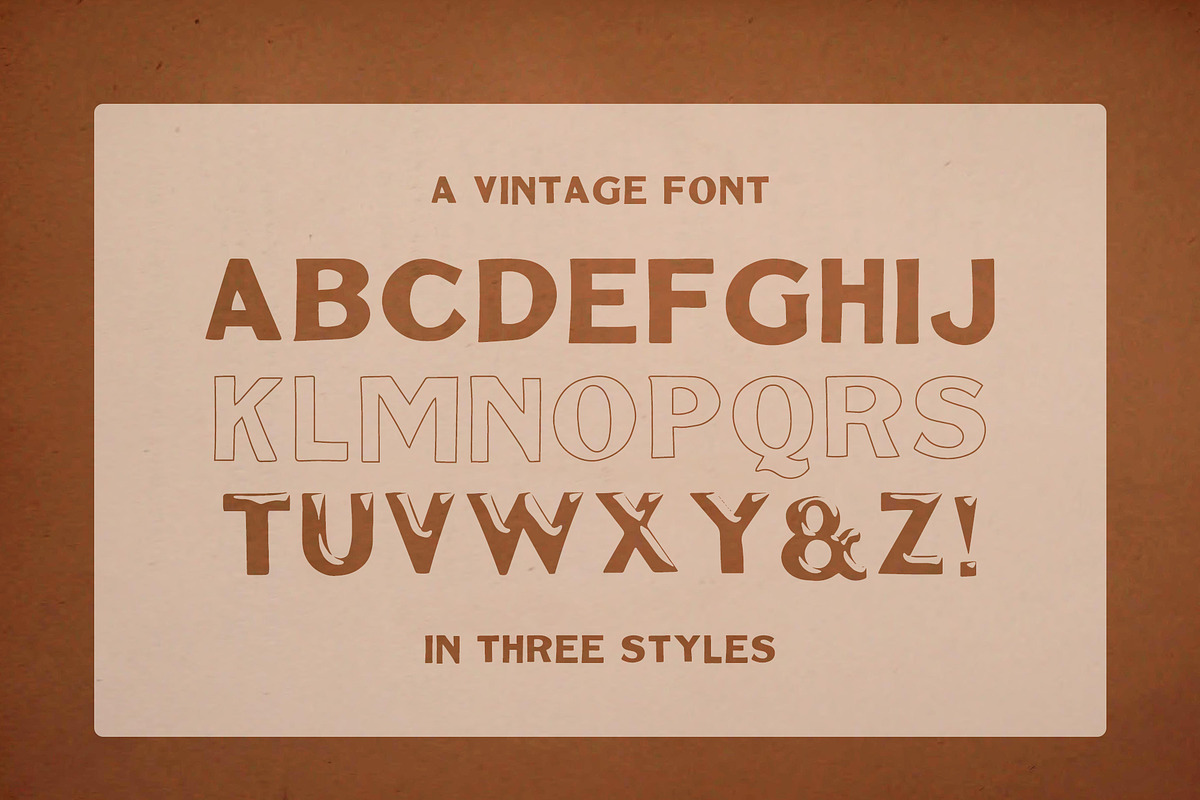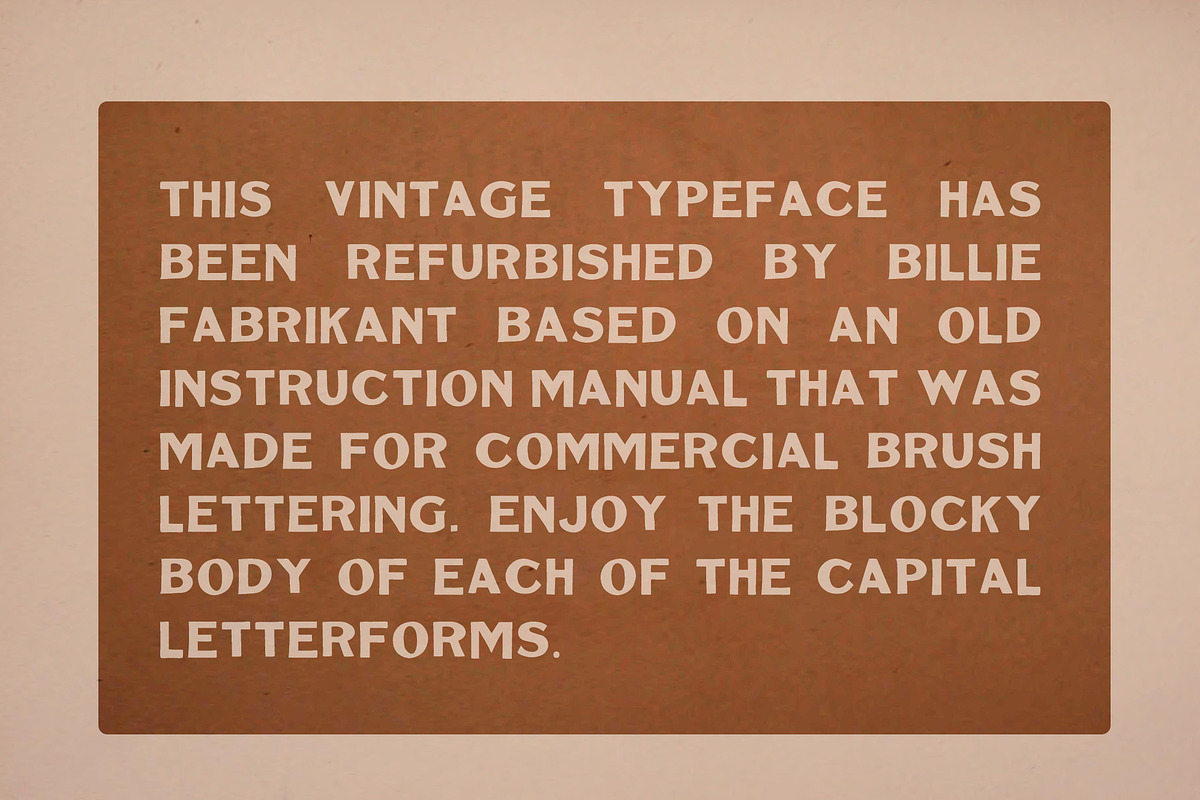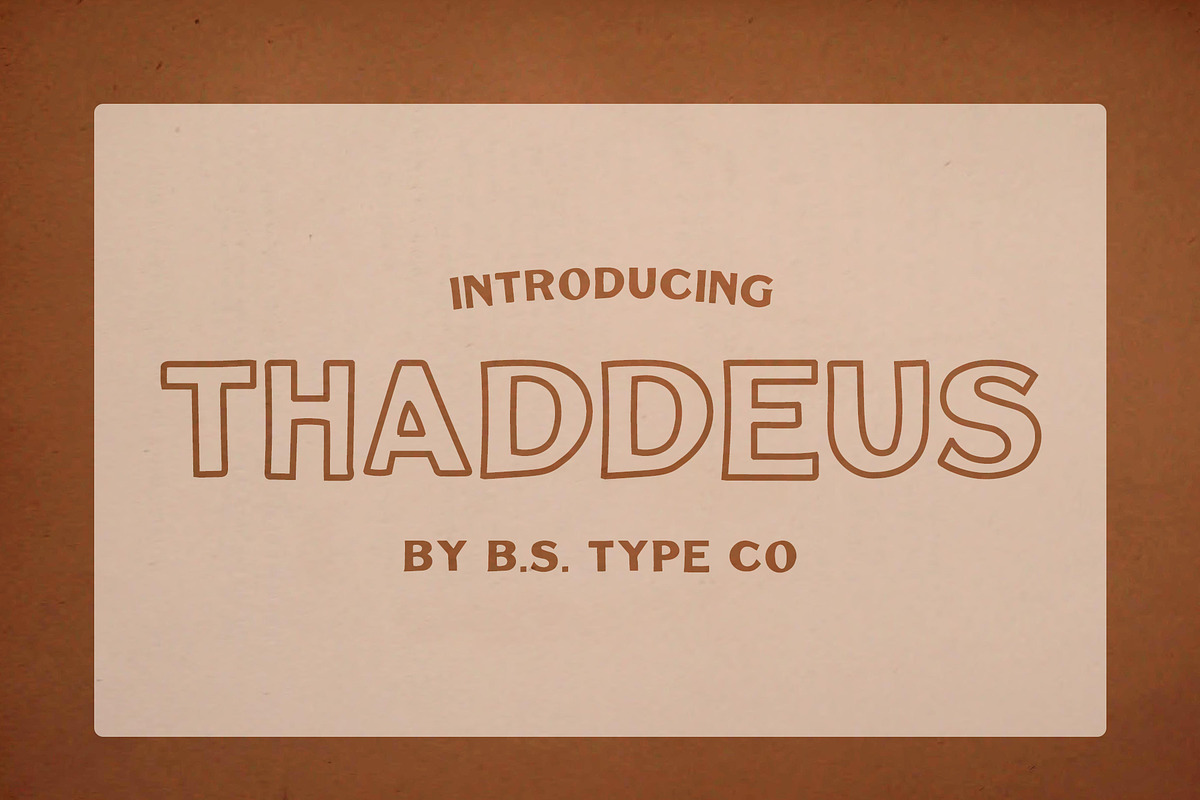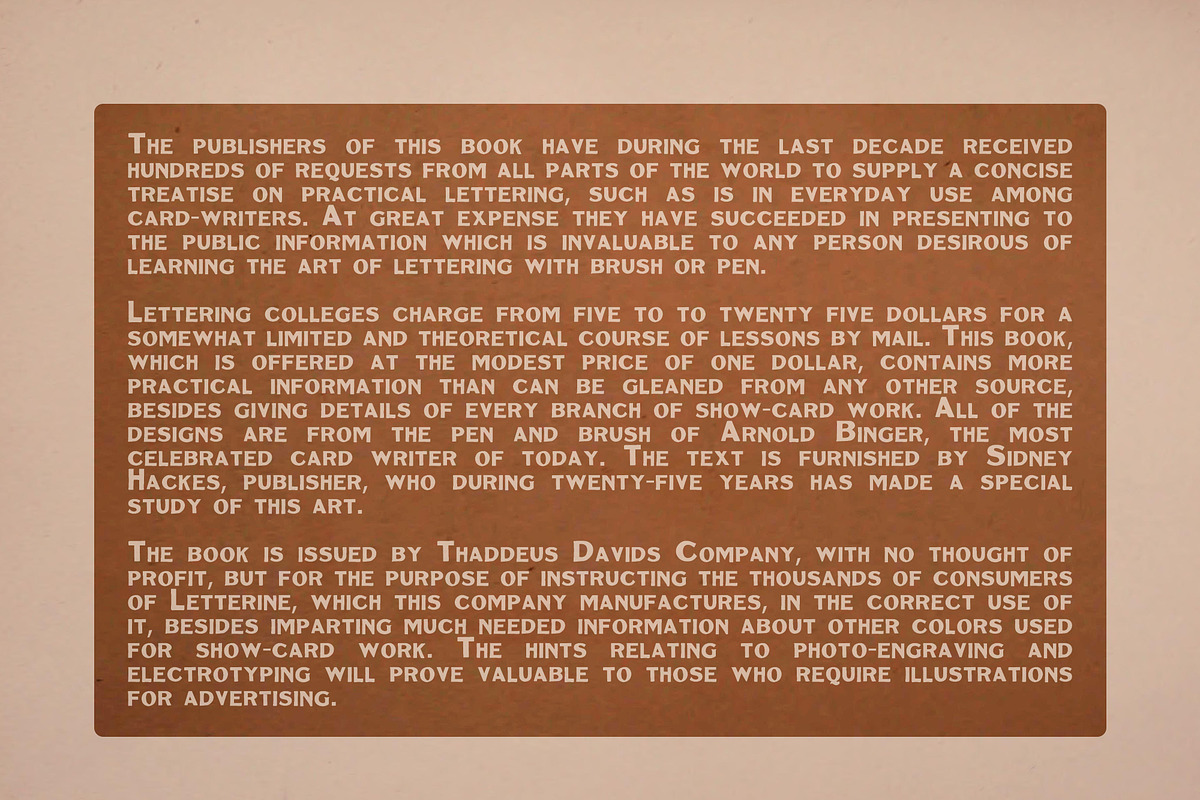
BS Thaddeus | Vintage Font Family
Unearth the past and script the future with BS THADDEUS — a font where each letter tells a story, steeped in history and reimagined for today's creative canvas. Born from the rich heritage of a 1900s hand-painting manual, 'Thaddeus' is a tribute to the ingenuity of Thaddeus Davids and a testament to the timeless craft of typography. With painstaking precision, each vintage letterform has been reborn through digital artistry, boasting a suite of styles including filled, outlined, and a novel "reflective" version that captures the essence of hand-brushed signs with a modern twist.
With its thick, uniform strokes, this font boasts a monospaced or nearly monospaced design, ensuring that each letterform stands out with equal prominence. The tall x-height enhances legibility, making it not only impactful but also highly readable at various sizes. Characterized by its blunt terminals and absence of serifs, the font exudes a vintage, clean aesthetic. Unique design elements are subtly integrated, such as the distinct leg of the 'R' and the stylized 'Q,' injecting a contemporary flair. Ideal for signage, headings, and digital displays, this typeface promises to deliver clarity and style in every character.
THADDEUS isn't merely a font—it's a historic narrative crafted by one designer's passion to fuse tradition with innovation. It's more than type; it's your gateway to a century-old story. Integrate this font family into your process to bring timeless character and versatility to your designs -- let your projects speak with a voice that's both bold and enduring!
MY CREATION PROCESS: Drawing inspiration from a typographic treasure unearthed within the Library of Congress archives— an early 1900s manual for hand-painted signs — I embarked on a journey to craft a font that marries historical elegance with contemporary innovation. Named in homage to its original publisher, Thaddeus Davids (a fellow New York native and pioneer of the printing industry), this font is the fruit of meticulous digitization of vintage letterforms, enhanced with modern refinements and personal creative twists. Each character has been meticulously scanned, vectorized, rasterized & revectorized when needed, and perfected by myself, ensuring a seamless blend of past and present in this unique font family.